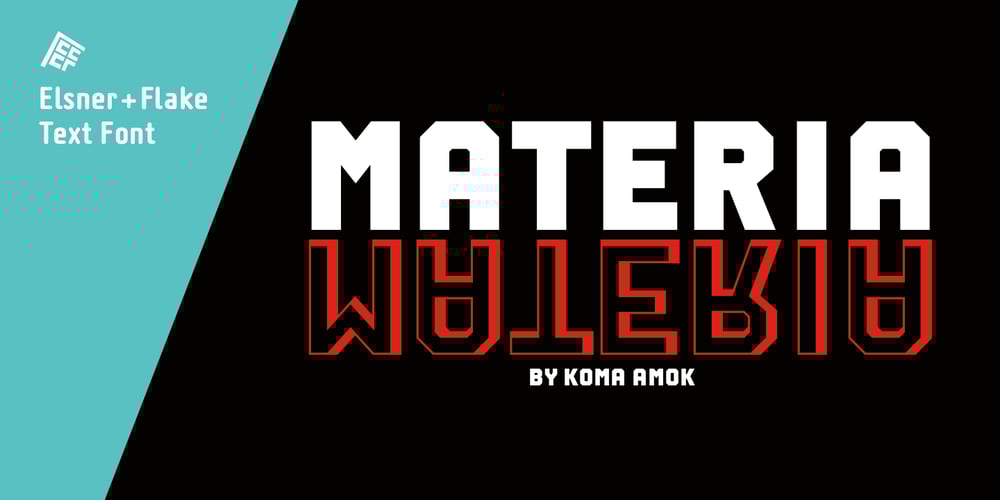
Materia Pro Font Family was designed by Gerd Sebastian Jakob, Joerg Ewald Meißner and published by Elsner+Flake. Materia Pro contains 8 styles and family package options. Minimal, modular, modern—at first glance, Materia shows a contemporary flair, combining pure, strong geometrical form with a subtle, distinct appearance. Actually, the design was inspired by lettering from the turn of the 19th to the 20th century that still can be found in the East of France. While its formal origins date back as far as this, revived e. g. by the constructivists into the nineteen twenties and later on by Dutch information designer Wim Crouwel in the nineteen-sixties, the visual language of Materia still speaks of the »future«. Following a minimalistic concept the font is formally built on a grid. Wherever optical curves are needed for a smoother, more comfortable shape of letters than a simple rectangular block, diagonals cut off the egdes – like a diamond is cut to achieve more beauty. Thus headlines and texts set in Materia are given a certain »egdy« feeling, whereas their tonality is still kept well-balanced, keeping concentation all on information in a nonconfomist way. Materia comes in eight styles, from elegant Thin to attention-forcing Ultra. Even a regular Italic is available, following the classic type-set-principle. Two of the styles are explicitly designed for display use, Shadow and Code. Both are ready for combinations with Bold or each other respectively, the layering of Shadow and Code e. g. allows astonishing effects or highlighting within the letters. For OpenType-users Materia is a real Pro, containing accented Latin letters for over 70 languages, small caps, old style, tabular and lining figures and special condensed titling all caps for cases in which space is all that counts. How useful all of the above mentioned is may be seen in the book David Lynch – Lithos, designed by Koma Amok, published in 2010 by item éditions, Paris, and Hatje Cantz, Germany, which was typeset completely in Materia.